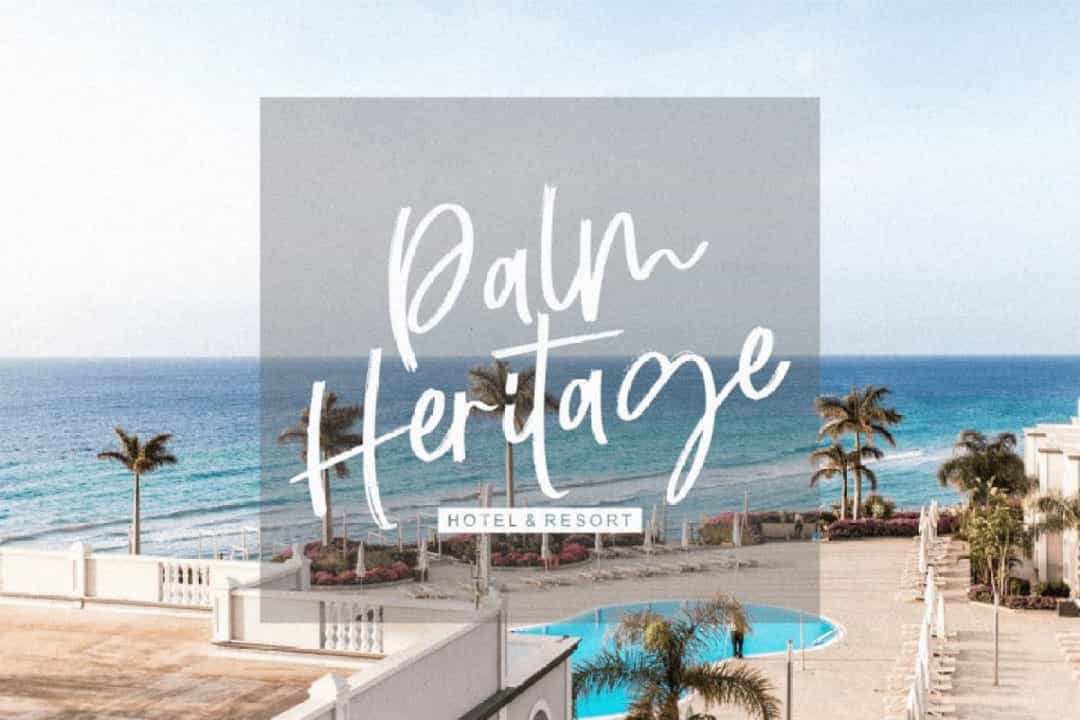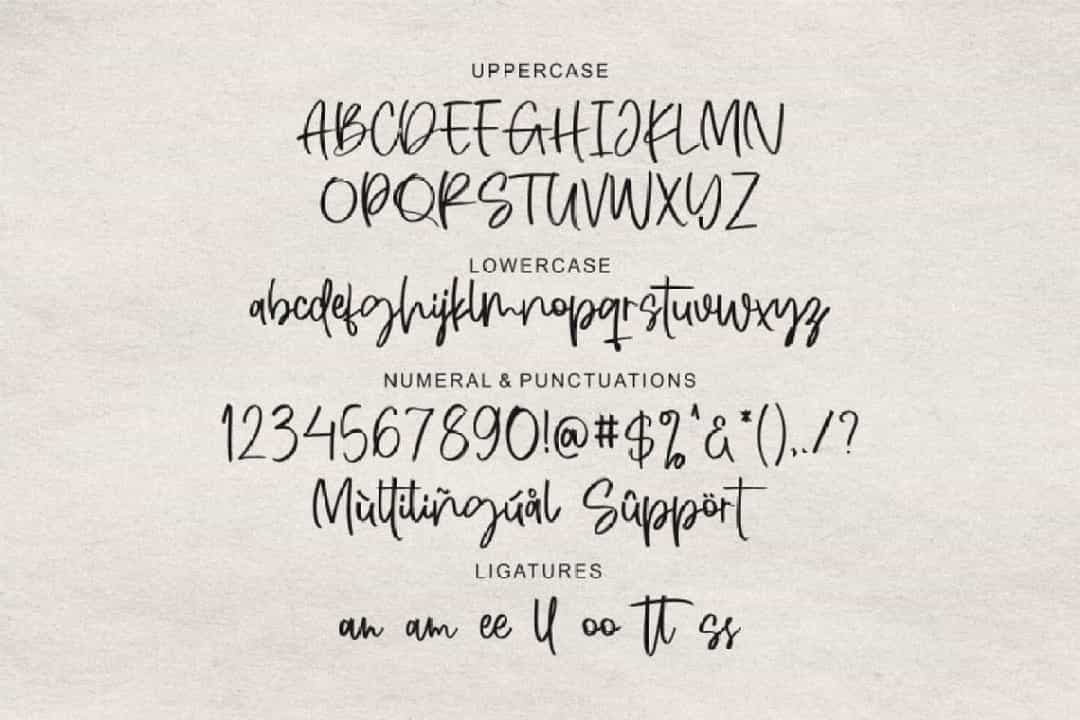
Bespoquet is a modern handwritten brush Script font. Ideal for packaging products, branding projects, magazines social media accounts or making words stand out above the background, Bespoquet can bring style and distinction to packaging and branding projects, wedding invitations or simply making words stand out more boldly against backgrounds.